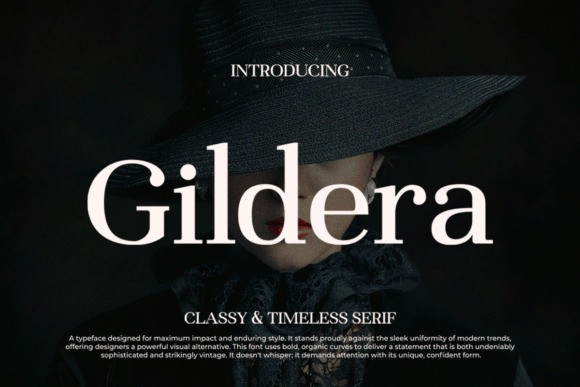
Gildera Font
Gildera Font is a powerfully visual serif typeface designed for maximum impact and enduring style.
It boldly stands against the sleek uniformity of many modern trends, offering designers a sophisticated alternative with a striking vintage flair. Gildera doesn’t whisper; it uses bold, organic curves to deliver a confident statement that is both undeniably sophisticated and strikingly vintage.
A Powerful Visual Alternative
This font embodies class and timelessness, making it an excellent choice for projects where a sense of heritage, quality, and luxury is essential. Its strong yet elegant letterforms demand attention, ensuring that your branding, headline, or editorial piece will capture the viewer’s eye and hold it.
Perfect for Upscale and Confident Branding
Gildera is the ideal typeface for high-end luxury brands, classic magazine titles, sophisticated packaging, cinematic posters, and any identity that needs to convey confidence, history, and uncompromising style. If you want a typeface that makes a powerful visual statement while maintaining a classic, high-end feel, Gildera is your choice.